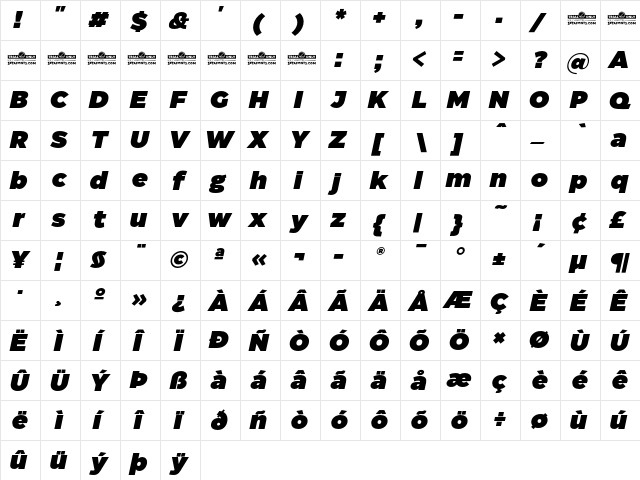
Eastman Trial Heavy Italic
| Foundry | Zetafonts |
| Designer | Francesco Canovaro |
Design Context for Eastman Trial Typeface
Eastman Trial takes a measured approach to typography — its balanced proportions and neutral character make it a reliable workhorse for both digital and print work. The dynamic lean of this cut emphasises speed and emphasis in any layout.